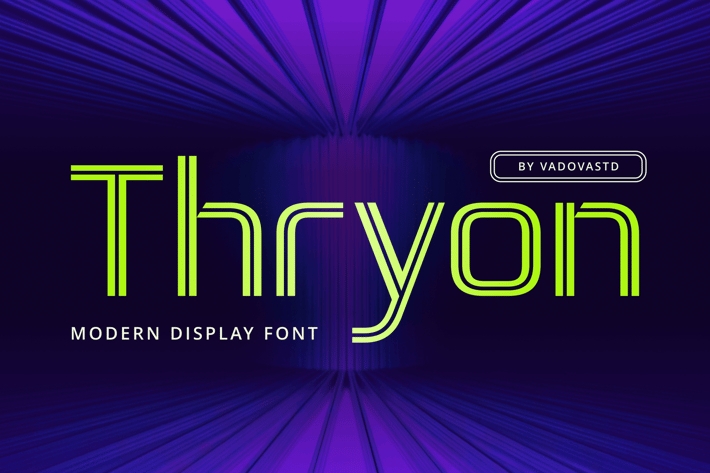
Thryon Cyberpunk Typeface Font
Thryon is a bold cyberpunk display font that merges modern futuristic aesthetics with high-tech sci-fi vibes. Ideal for designs that need a digital, robotic, or cyber-infused edge, this font features sharp lines, neon accents, and tech-inspired forms that evoke a high-energy, Y2K-era digital world. Perfect for posters, game titles, tech branding, and futuristic user interfaces, Thryon sets the tone for dynamic and immersive visual storytelling.